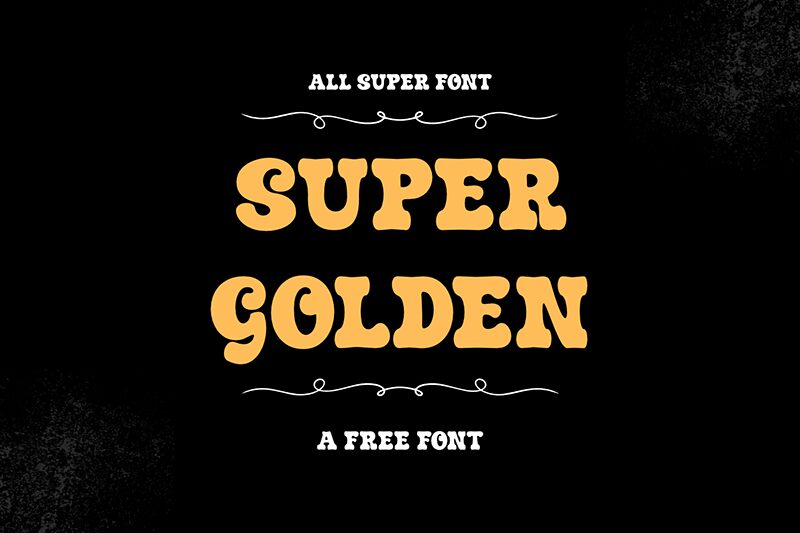
Super Golden
Super Golden font by fsuarez913 is a bold display typeface with a Western-style retro aesthetic. Soft edges contribute to a whimsical look with playful and casual undertones. Inspired by the beloved Cooper Black, this font features curves and stems that differ in their lines’ weights, which reveals its unique form.